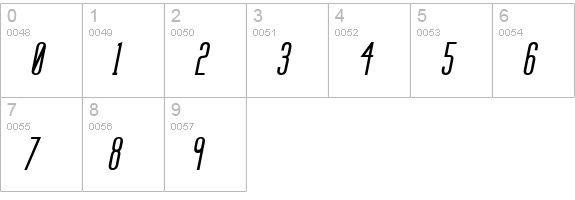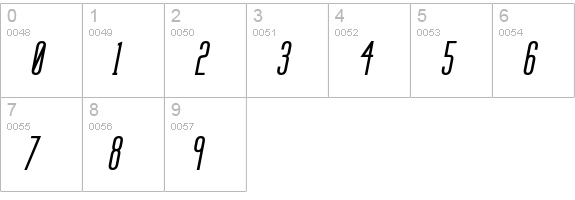
Labtop Secundo Bold Italic is a strong, high-contrast, italic variant in the Labtop typeface family \xE2\x80\x94 well suited to headlines, attention-grabbing titles, and strong calls-to-action.
Labtop Secundo Bold Italic is a striking and elegant font that exudes modernity and sophistication. Its bold and italicized design adds a touch of flair and style to any project, making it perfect for headlines, titles, and branding materials. The sleek curves and sharp edges of Labtop Secundo Bold Italic create a unique visual impact that is sure to grab attention. Best of all, Labtop Secundo Bold Italic is available for free download at FontsMarket.com. This means you can easily access this versatile and eye-catching font to enhance your designs without any cost. Whether you're working on a personal project or a professional endeavor, Labtop Secundo Bold Italic is a fantastic choice to add a touch of elegance and creativity to your work. Download it now and elevate your designs with this exceptional free font.